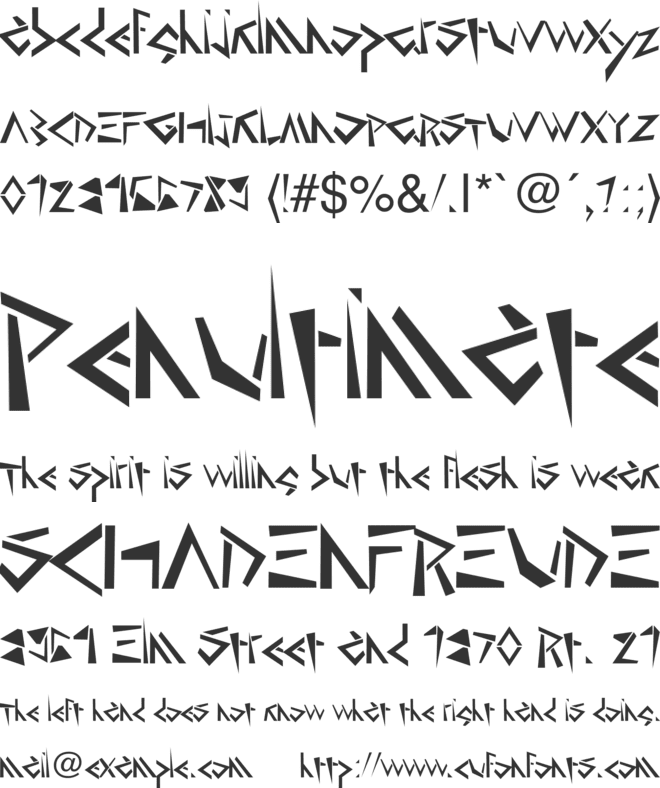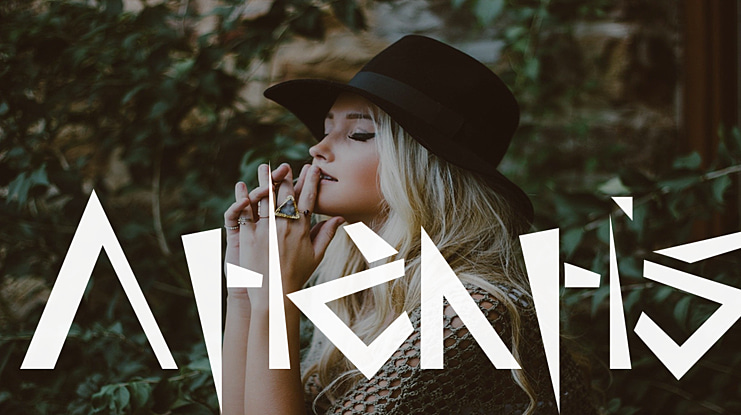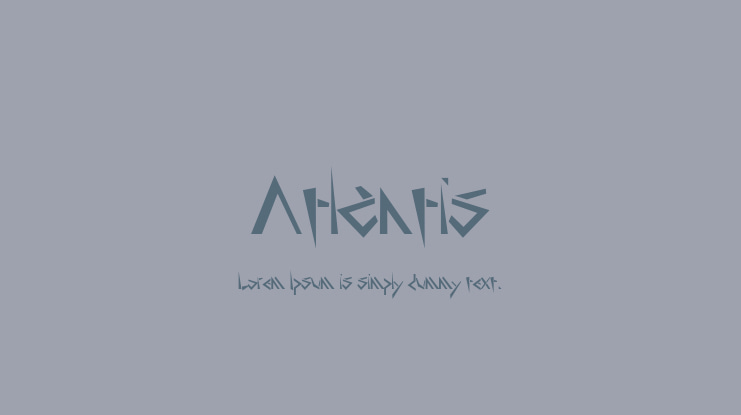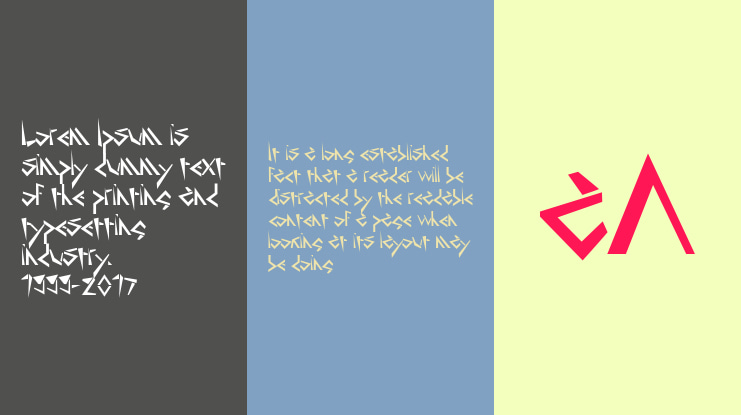
Atlantis Font
A pseudo Sci fi, alien font I made as part of a class. The fon't contains uppercase, lowercase, numbers, punctuation and some common symbols.